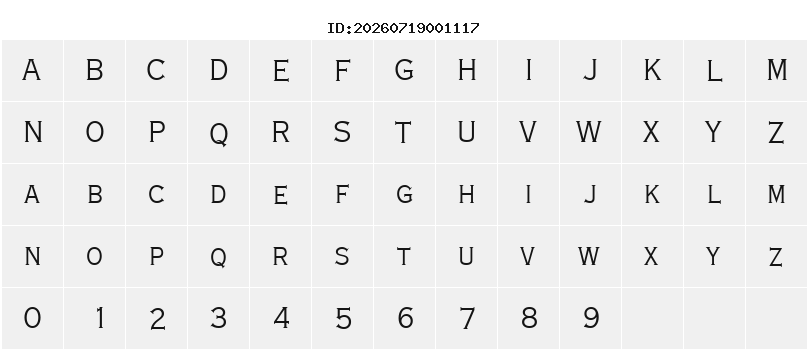
Copperplate Becker Light Cond Preview
• Font Name: Copperplate Becker Light Cond
About Copperplate Becker Light Cond.ttf
Copperplate Becker Light Cond.ttf is a modern, elegant sans-serif font designed for ultimate readability and visual harmony. Perfect for branding, headlines, web design, and print materials.